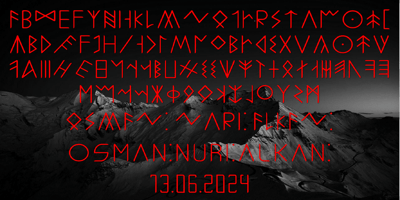
Ongunkan Alpine Runes
Ongunkan Alpine Runes font
Ongunkan Alpine Runes Font Family was designed by Osman Nuri ALKAN and published by Runic World Tamgacı. Ongunkan Alpine Runes contains 1 styles and family package options. Alpine “Runes” The ancient Alpine scripts (Rhaetian, Lepontic, Venetic) appear as a link between the Germanic runes and the much older Etruscan script, from which they descend as late North Etruscan variants.